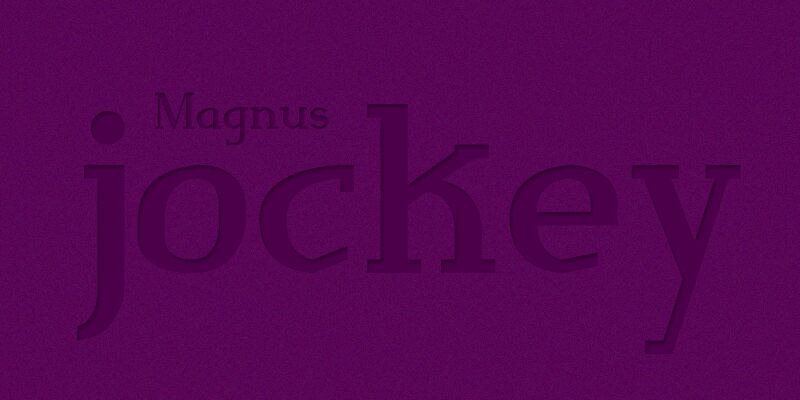
Magnus Jockey by Fabiane Lima is a free high-contrast serif font with a tall, commanding silhouette and sharply tapered strokes. Broad verticals meet hairline details, and the compact spacing gives the lettering a dense, editorial texture.
It looks especially at home beside stark fashion photography. The same dramatic stroke changes can shape magazine mastheads, luxury packaging, and arts posters, echoing the hard edges and fine details found in studio portraits or architectural imagery.